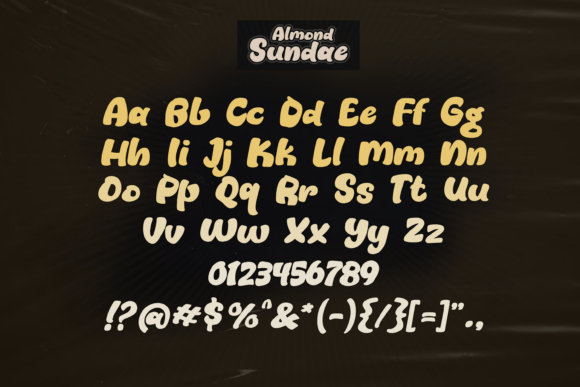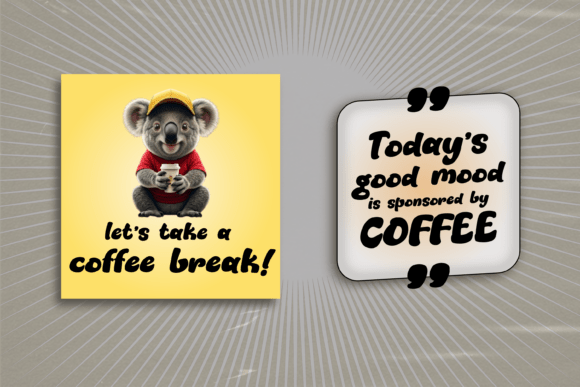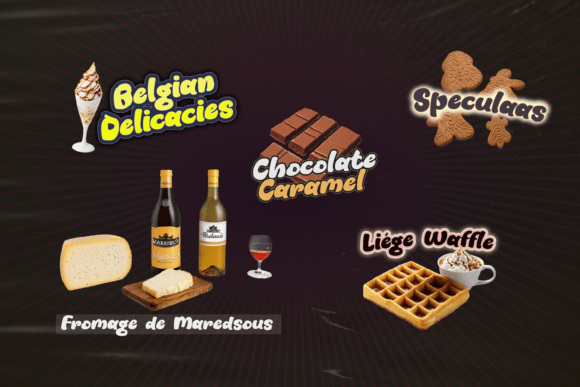
Introducing Almond Sundae Font: The Perfect Blend of Elegance and Whimsy
Are you tired of using the same old fonts in your designs? Look no further than Almond Sundae Font, a charming and playful typeface that brings a touch of warmth and nostalgia to any project. With its unique letterforms, soft curves, and slightly irregular strokes, Almond Sundae is the perfect choice for designers and crafters looking to add a friendly, approachable look to their work.
The Inspiration Behind Almond Sundae Font
Almond Sundae Font draws inspiration from vintage signage and cozy Sunday mornings. The font’s creator aimed to capture the essence of a bygone era, when life was a little slower and a little sweeter. The result is a font that balances elegance with a casual, handwritten aesthetic, making it versatile yet distinctive.
What Makes Almond Sundae Font So Special?
So, what sets Almond Sundae Font apart from other fonts out there? Here are just a few of its standout features:
• Soft Curves and Irregular Strokes: Almond Sundae’s unique letterforms feature soft curves and slightly irregular strokes, giving it a handcrafted, organic feel.
• Handwritten Aesthetic: The font’s casual, handwritten aesthetic makes it perfect for designs that need a friendly, approachable look.
• Balanced Elegance: Despite its playful nature, Almond Sundae Font still manages to convey a sense of elegance, making it suitable for a wide range of design projects.
• Excellent Readability: The font’s smooth readability ensures that your message will be conveyed clearly, no matter what type of project you’re working on.
Almond Sundae Font is perfect for a wide range of design projects, including:
• Branding: Use Almond Sundae Font to create a unique and memorable brand identity that sets you apart from the competition.
• Invitations: Add a touch of whimsy and charm to your invitations with Almond Sundae Font.
• Packaging: Use Almond Sundae Font to create eye-catching packaging that stands out on store shelves.
• Creative Projects: Whether you’re working on a DIY craft project or a creative endeavor, Almond Sundae Font is the perfect choice.
Why Designers and Crafters Love Almond Sundae Font
Designers and crafters love Almond Sundae Font for its delightful personality and smooth readability. The font’s sweet and whimsical charm makes every word feel inviting and heartfelt, perfect for designers and crafters who want to add a personal touch to their work.
Tips for Using Almond Sundae Font
Here are a few tips for getting the most out of Almond Sundae Font:
• Use it for Headings and Titles: Almond Sundae Font is perfect for headings and titles, where its playful and whimsical nature can really shine.
• Pair it with Other Fonts: Experiment with pairing Almond Sundae Font with other fonts to create a unique and visually appealing design.
• Use it for Body Text: While Almond Sundae Font is perfect for headings and titles, it can also be used for body text, especially in designs where a friendly, approachable tone is desired.
Font Name Almond Sundae Font
Author Deedeetype
In conclusion, Almond Sundae Font is a charming and playful typeface that brings a touch of warmth and nostalgia to any design. With its unique letterforms, soft curves, and slightly irregular strokes, it’s the perfect choice for designers and crafters looking to add a friendly, approachable look to their work. Whether you’re working on a branding project, creating invitations, or designing packaging, Almond Sundae Font is sure to delight.